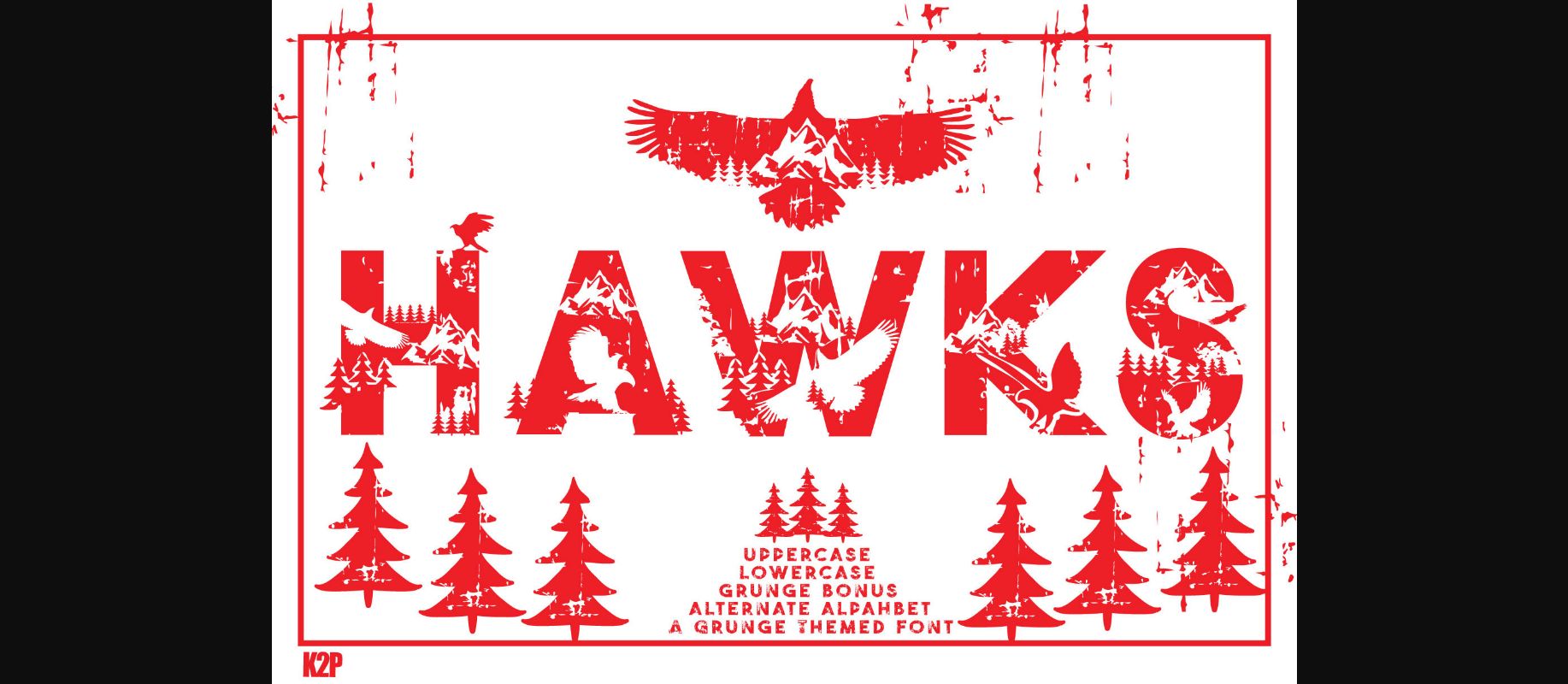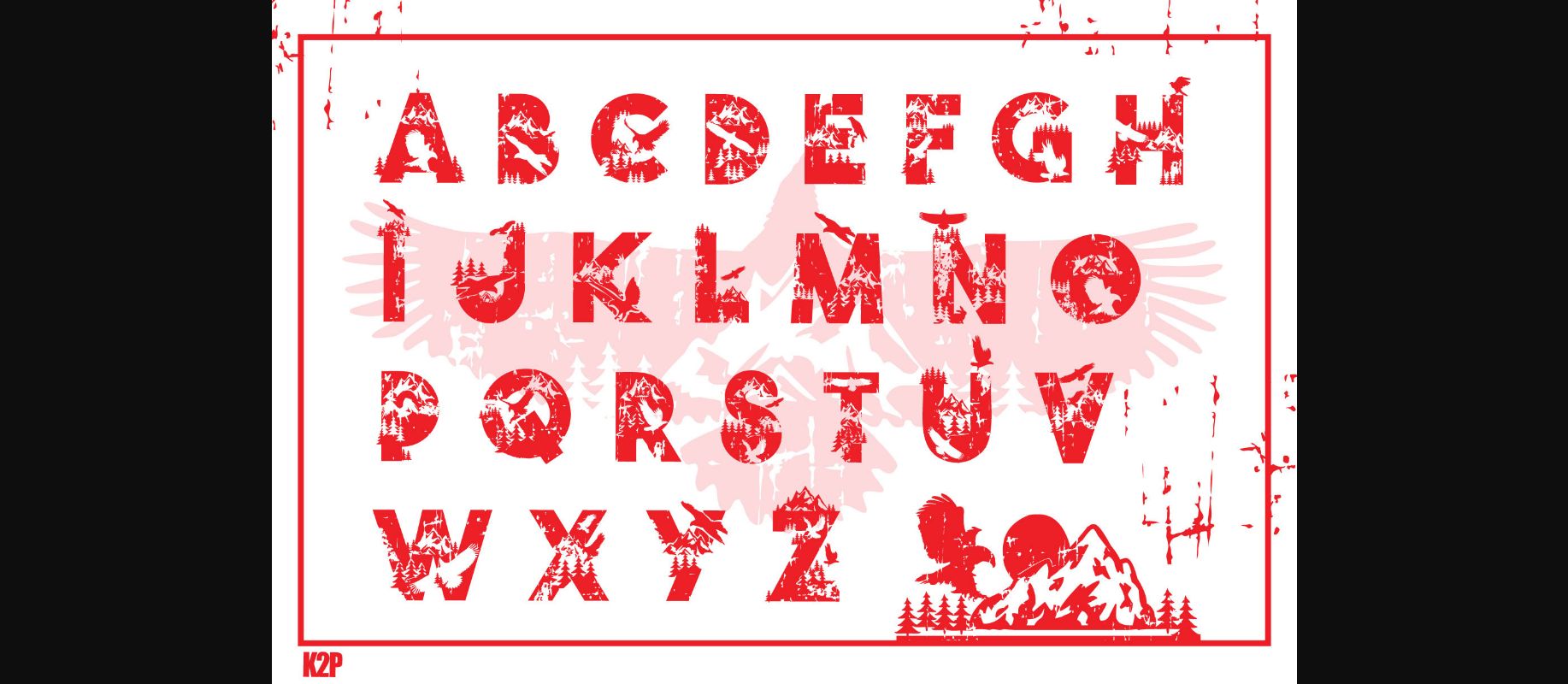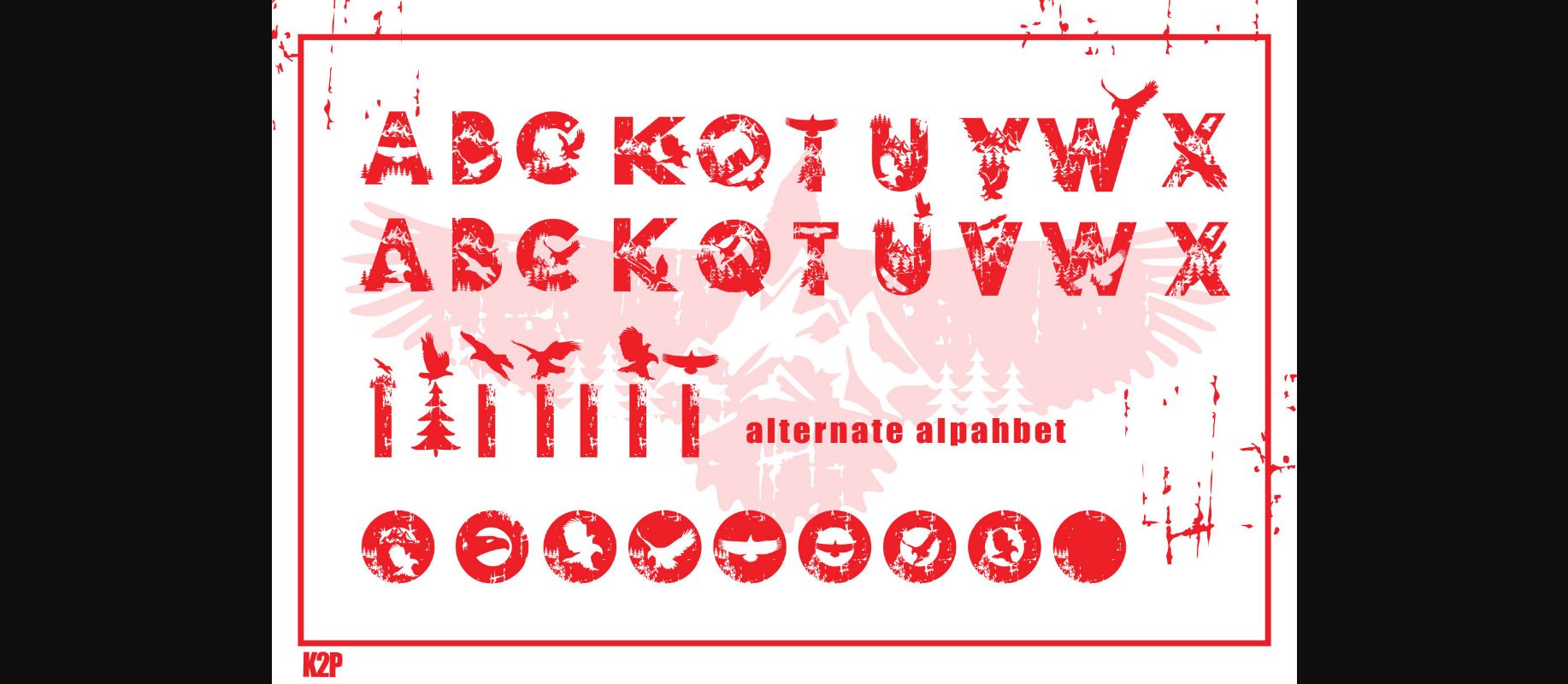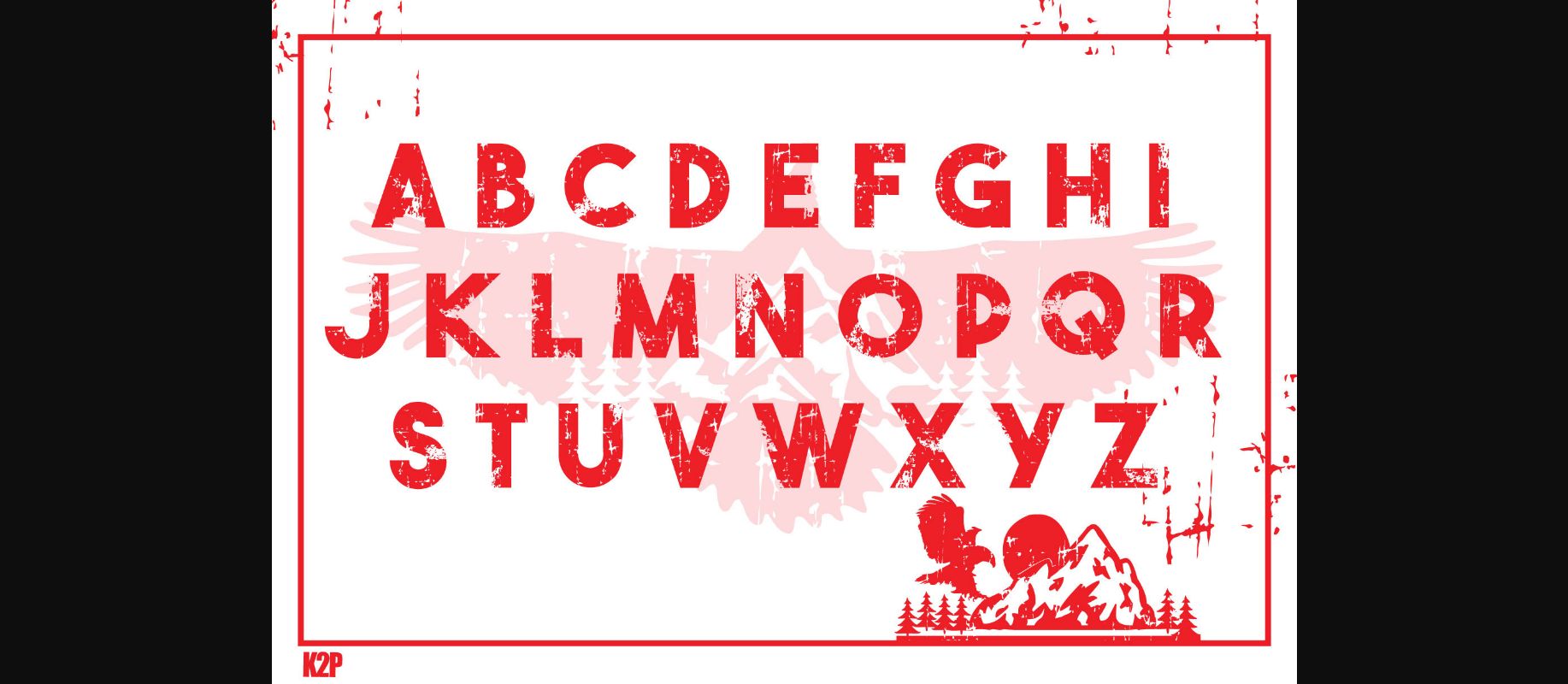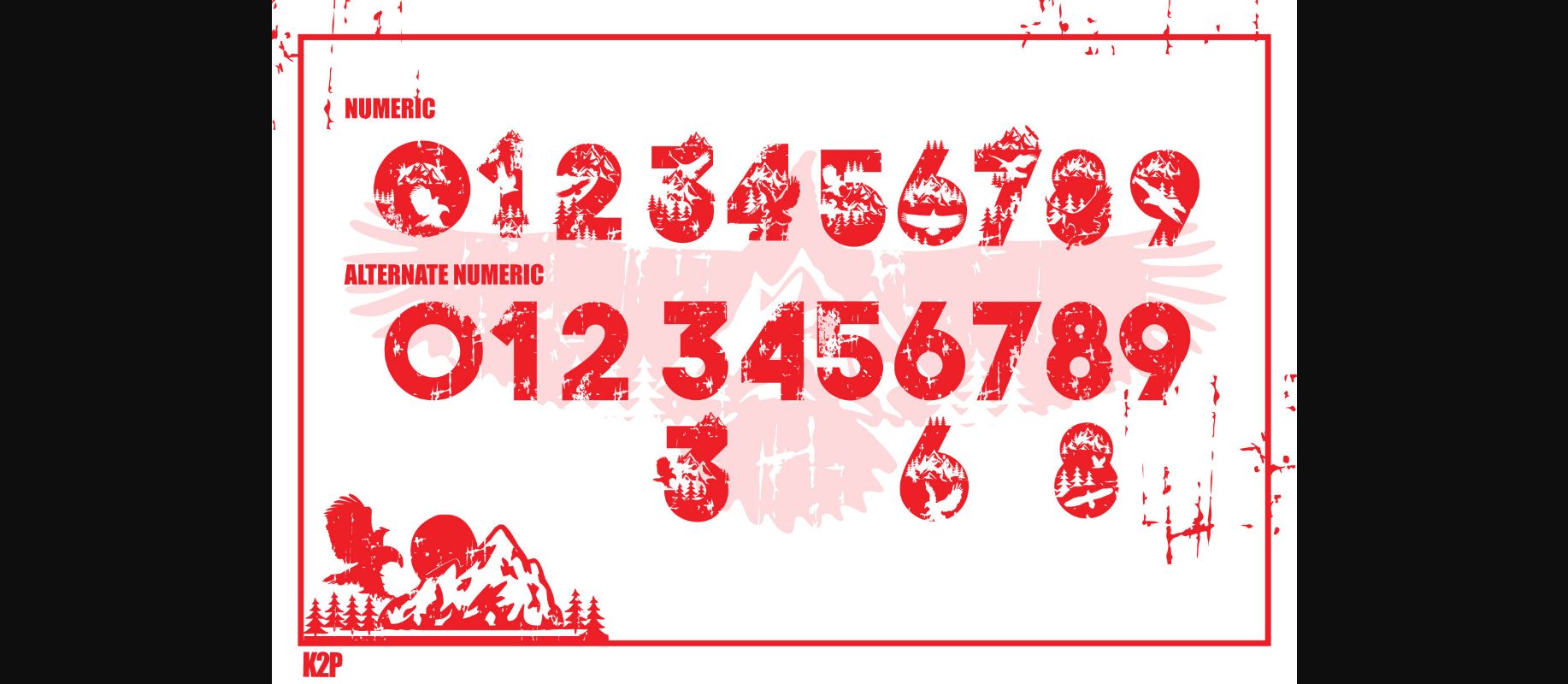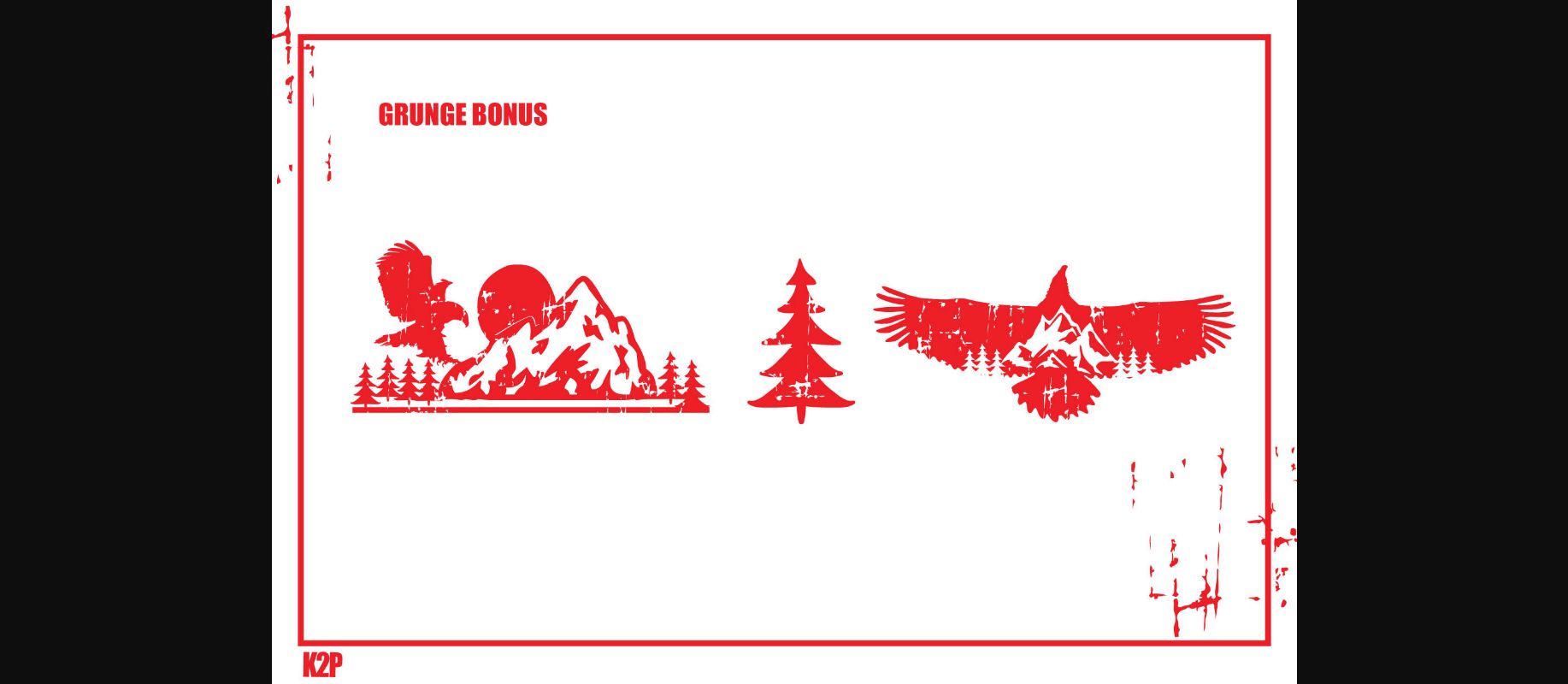
Hawks Font
About Hawks Font
Hawks is a fun, original, and assertive decorative font. It is perfect for various design ideas related to fishing, camping, traveling, and more. This font is PUA encoded which means you can access all of the glyphs and swashes with ease.